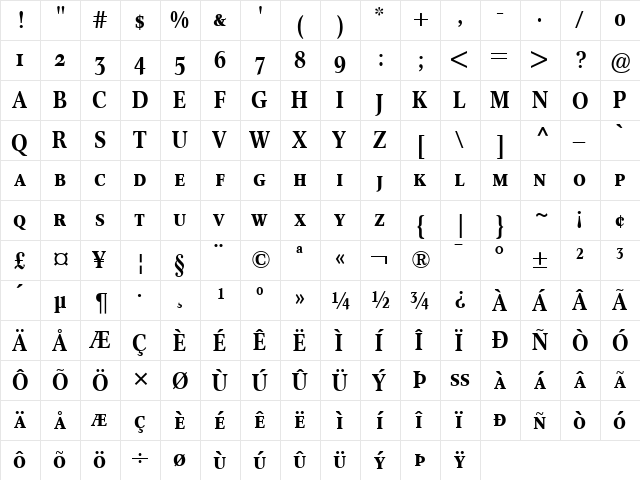
Concorde Nova Bold
| Foundry | Adobe Systems Incorporated |
Design Context for Concorde Nova Typeface
Concorde Nova takes a measured approach to typography — its balanced proportions and neutral character make it a reliable workhorse for both digital and print work. The heavy weight commands attention and anchors typographic hierarchies.